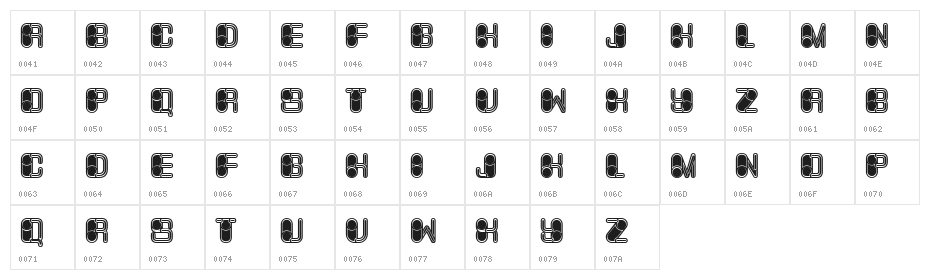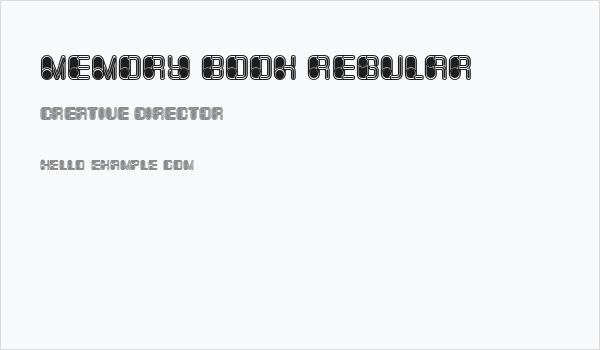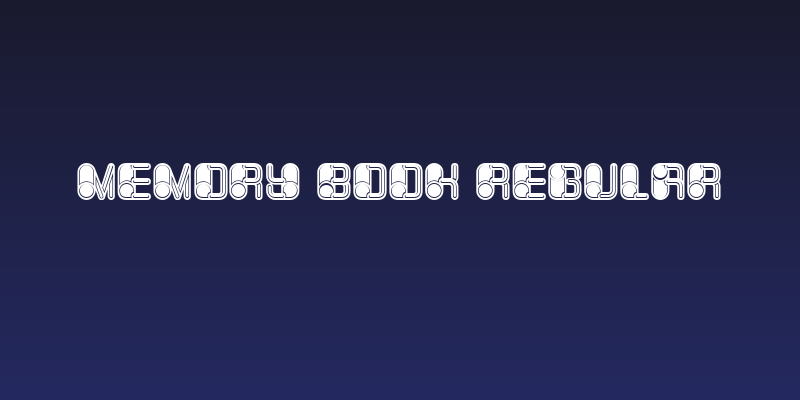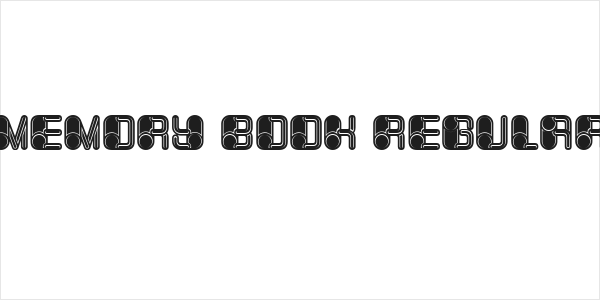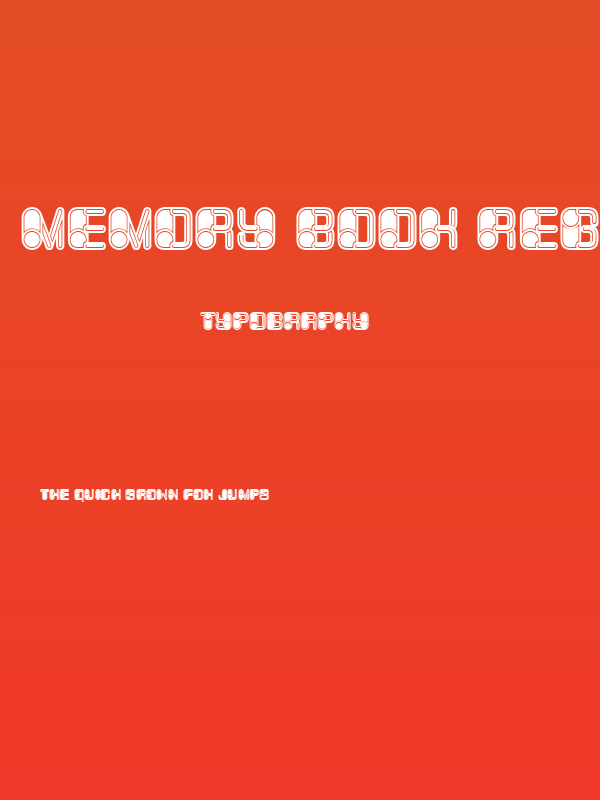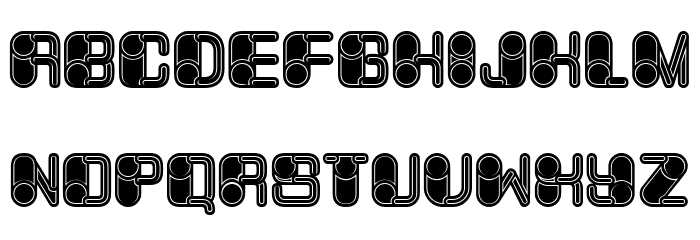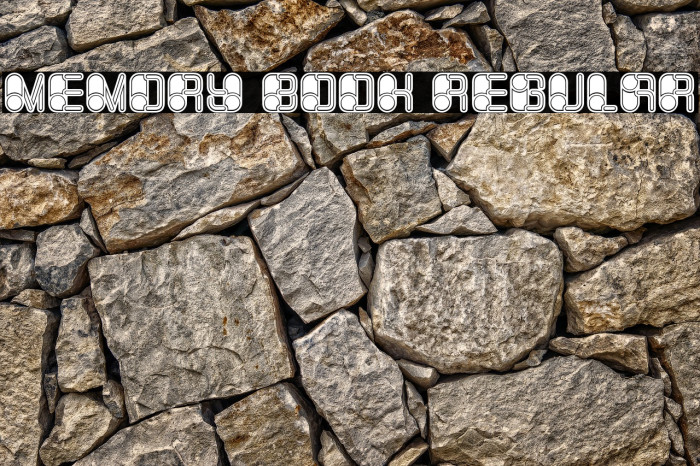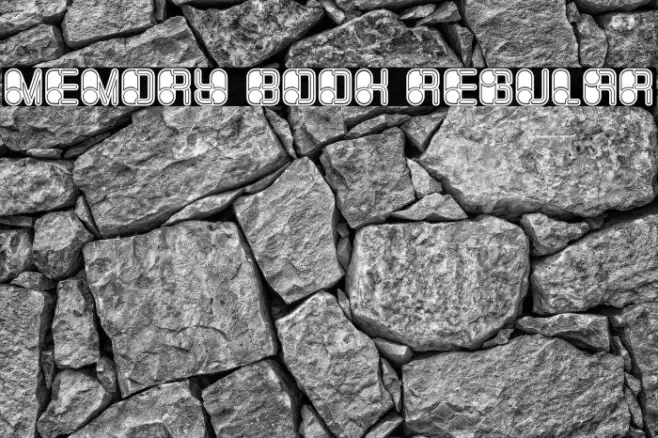
Memory Book Regular Font
Memory Book Regular Description
This font features a bold, geometric design with a unique, futuristic aesthetic. Each character is composed of thick, rounded strokes that form a continuous loop, giving the font a distinct, interconnected appearance. The letters are outlined, adding depth and a three-dimensional effect. This style is consistent across both uppercase and lowercase letters, as well as numbers and special characters. The font's playful yet structured design makes it stand out, with a modern and innovative feel that is suitable for creative and eye-catching projects.
| Proposed Projects | Ideal for branding, posters, album covers, and any project requiring a modern, standout typeface. |